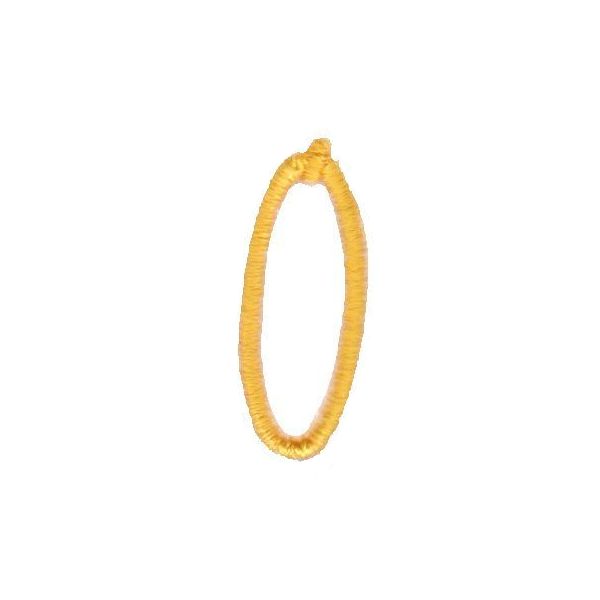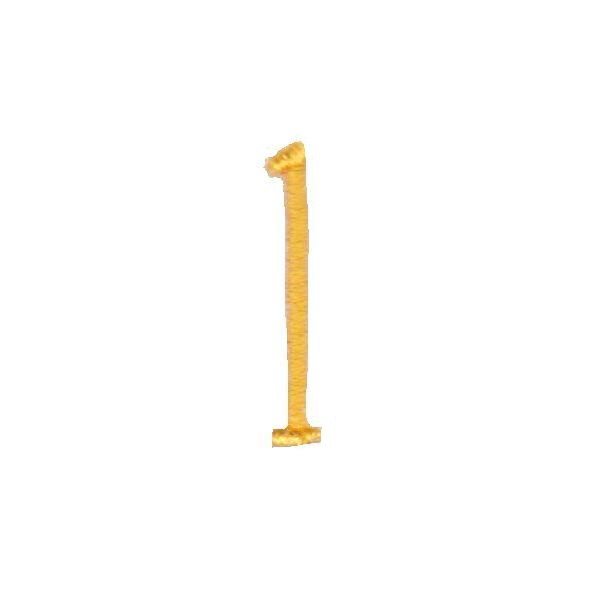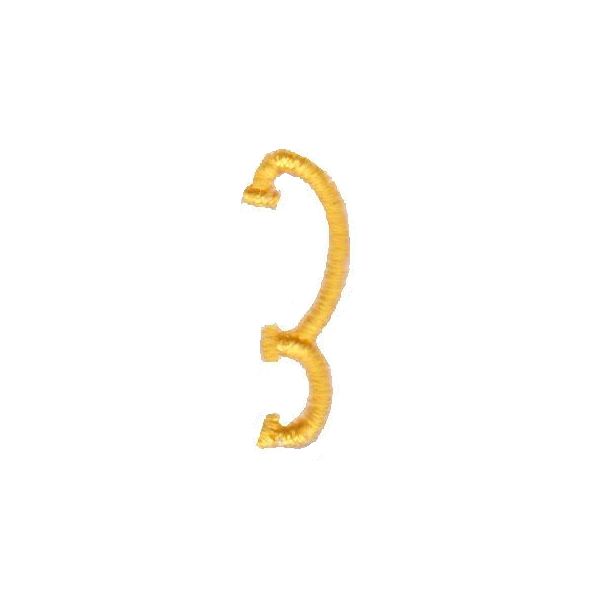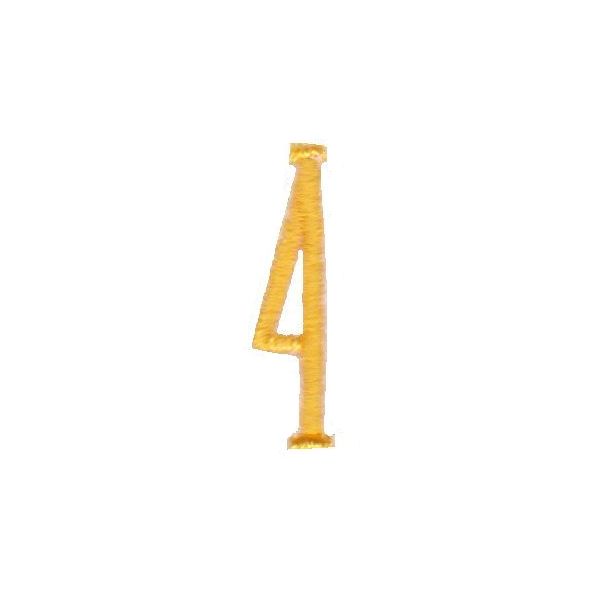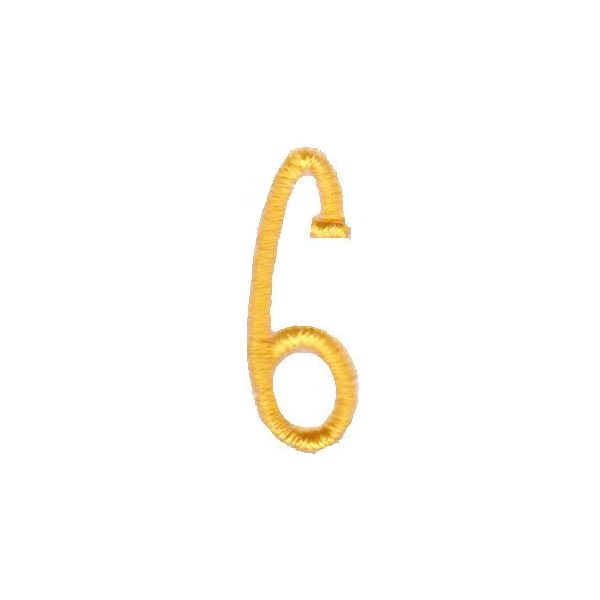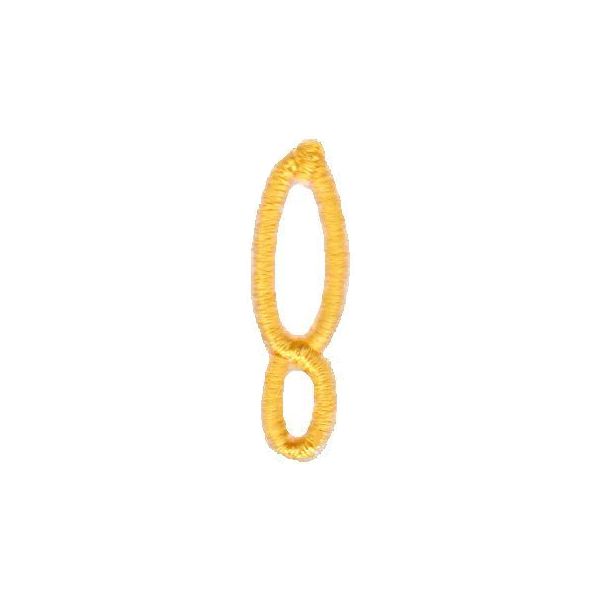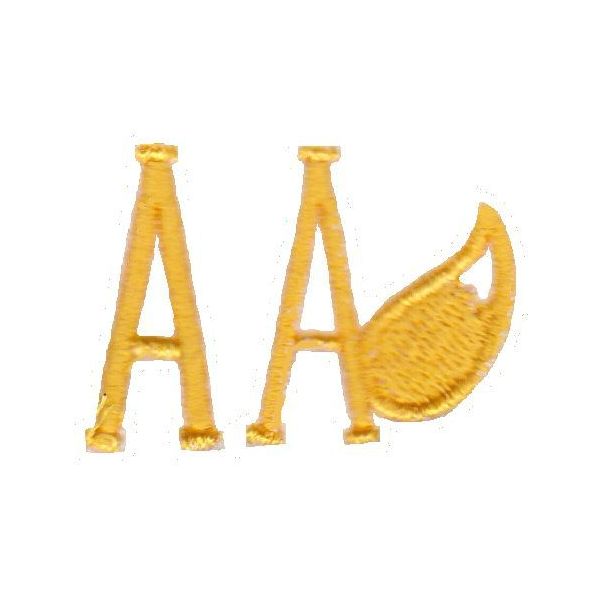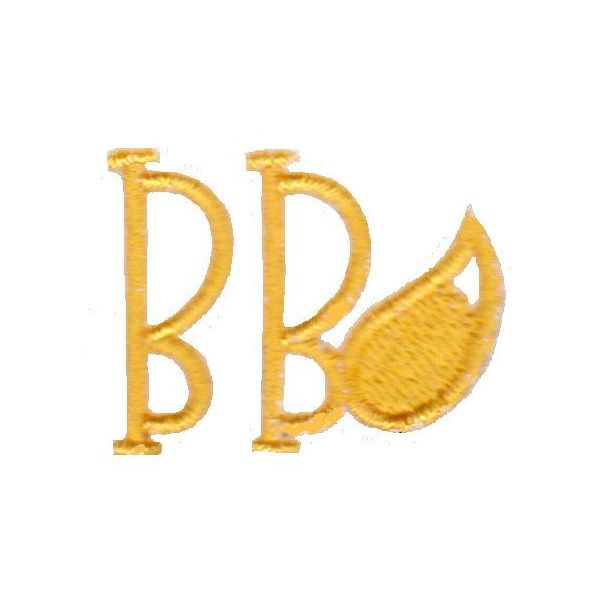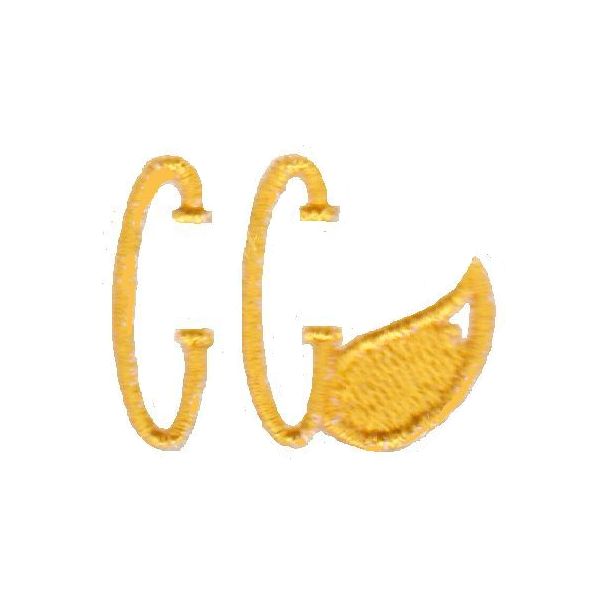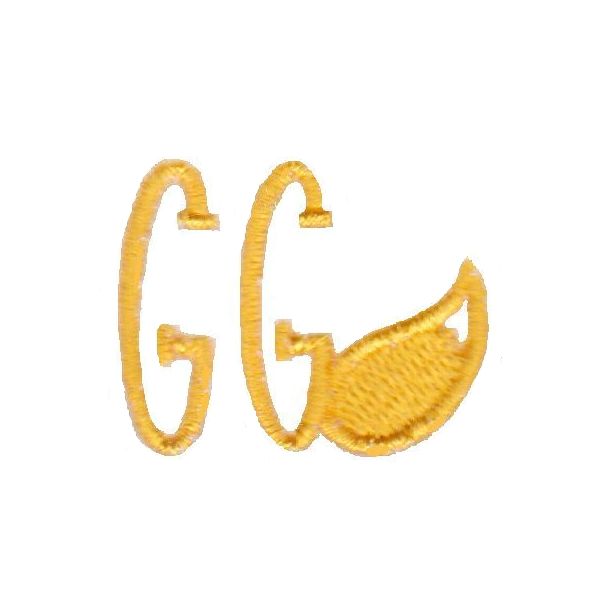
Fauxtales Font
Fauxtales Embroidery Font is a cute and different font. This font includes 5 great sizes - 1 Inch, 1.25 Inches, 1.5 Inches, 1.75 Inches and 2 Inches. The font includes Capitals, Lower Case and Numbers as displayed. BX files are also included for use with the Embrilliance software when purchasing the full alphabet set. Just choose your machine format, and the BX files will be included with your machine format files. See our full range of